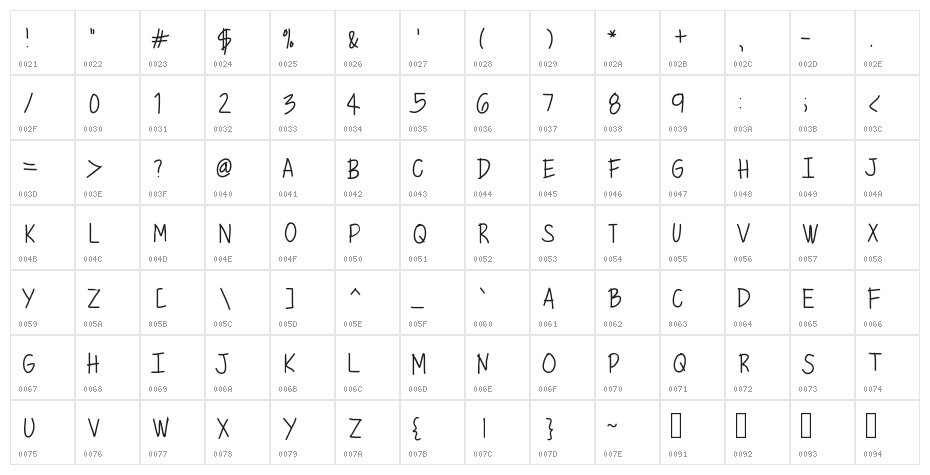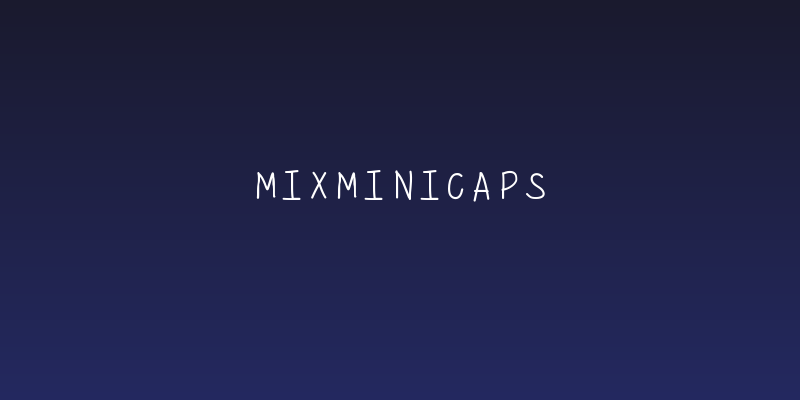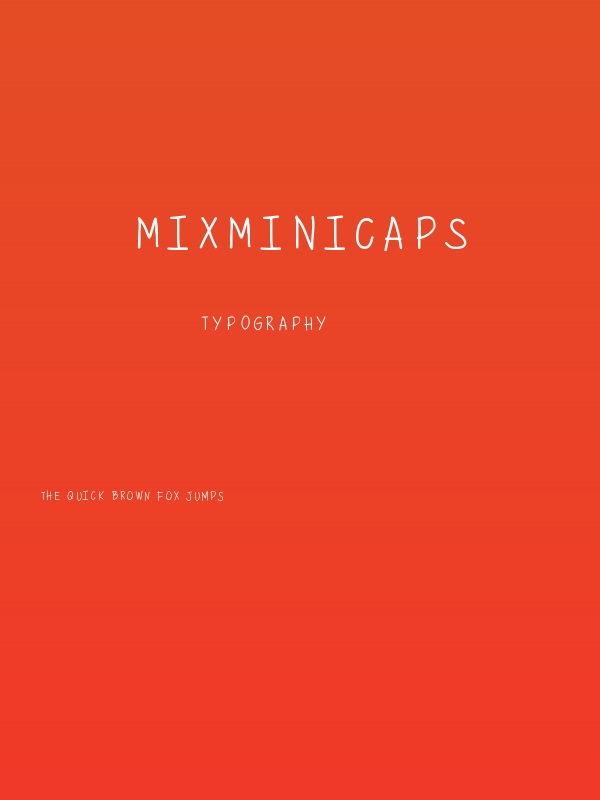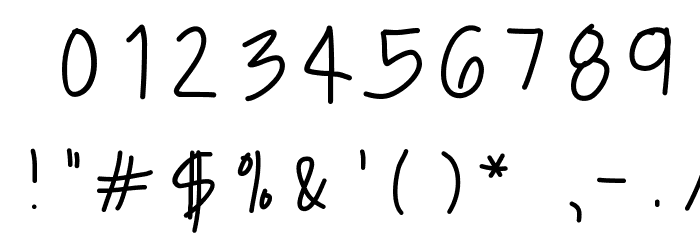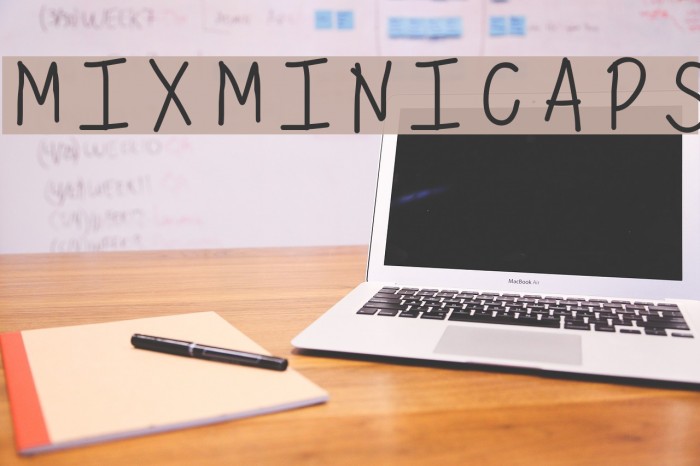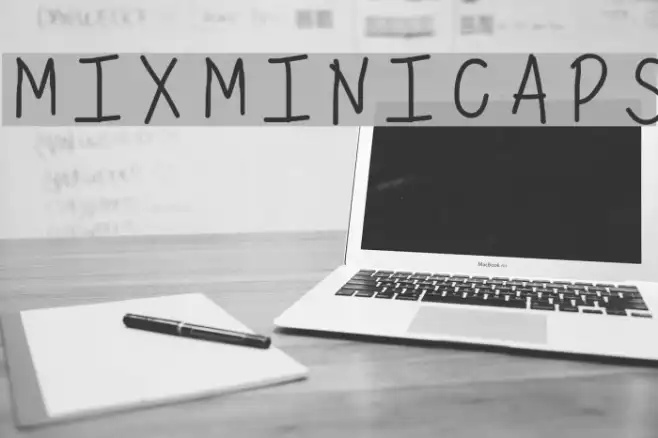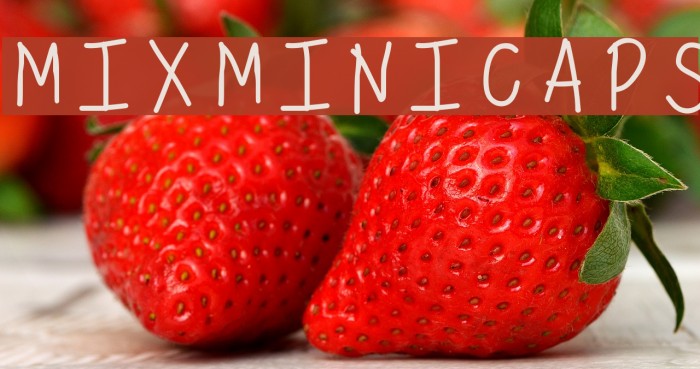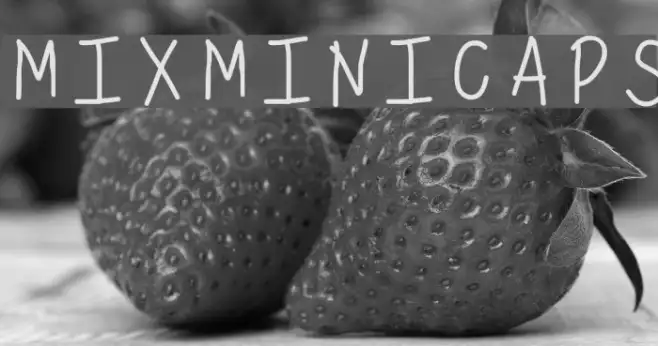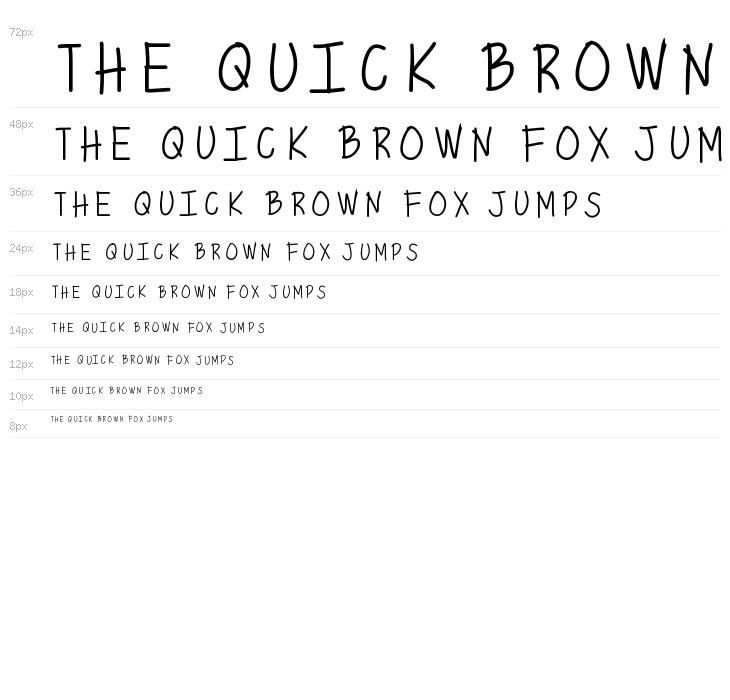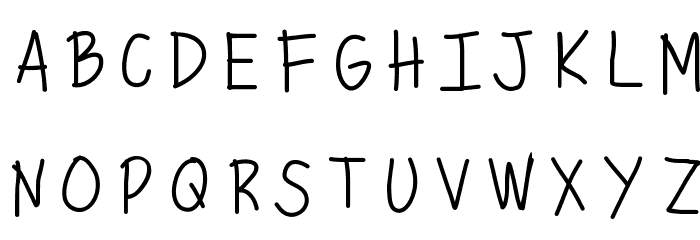
MixMiniCaps Font
MixMiniCaps Description
This font features a playful and casual handwritten style, characterized by its irregular strokes and slightly uneven baseline. The letters are crafted with a natural flow, giving them a personal and informal touch. The uppercase and lowercase letters maintain a consistent style, with rounded edges and a slight tilt that adds to the font's charm. Numbers and special characters are designed to match the overall aesthetic, ensuring a cohesive look across all text. This font is ideal for projects that require a friendly and approachable feel, such as personal notes, invitations, or creative branding.
| Use Case | Headlines, Informal text, Creative branding |
| Proposed Projects | Ideal for personal notes, invitations, creative branding, and casual designs. |